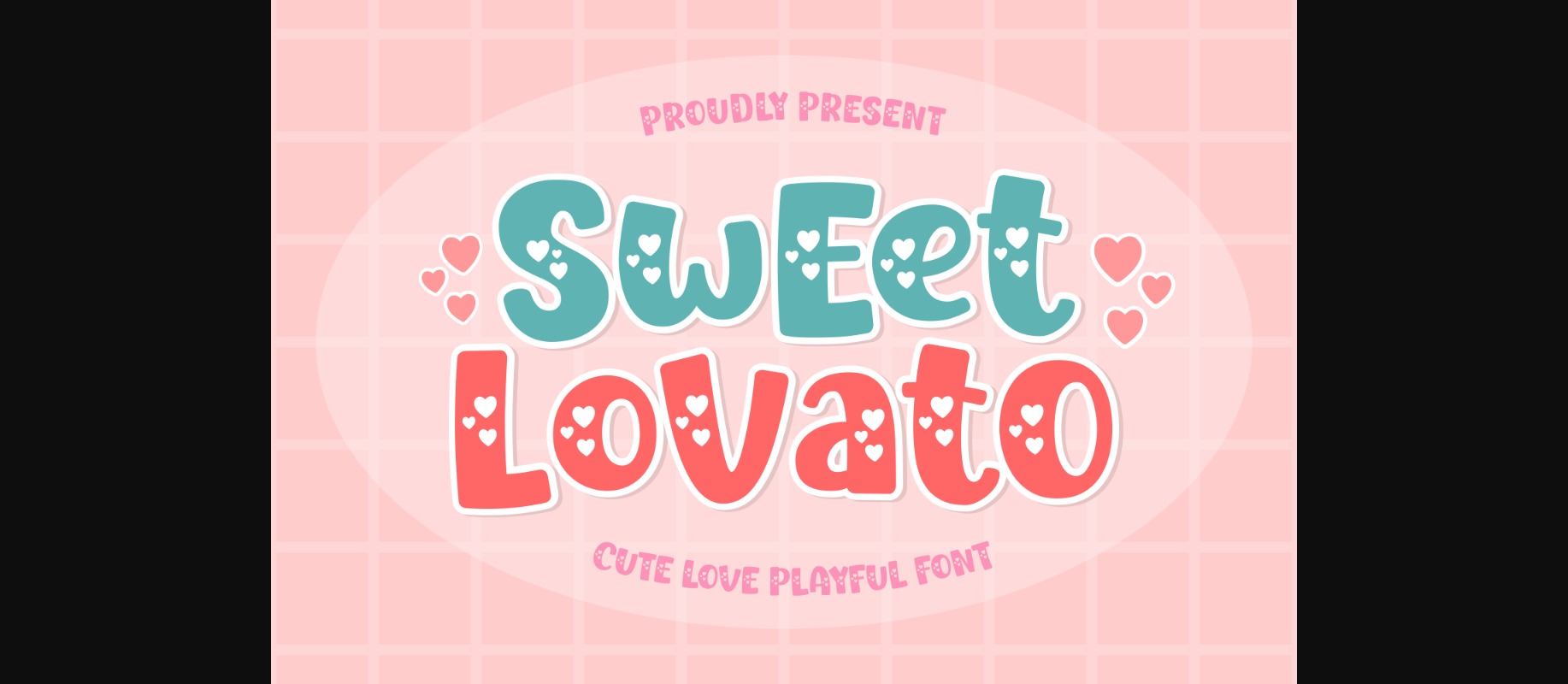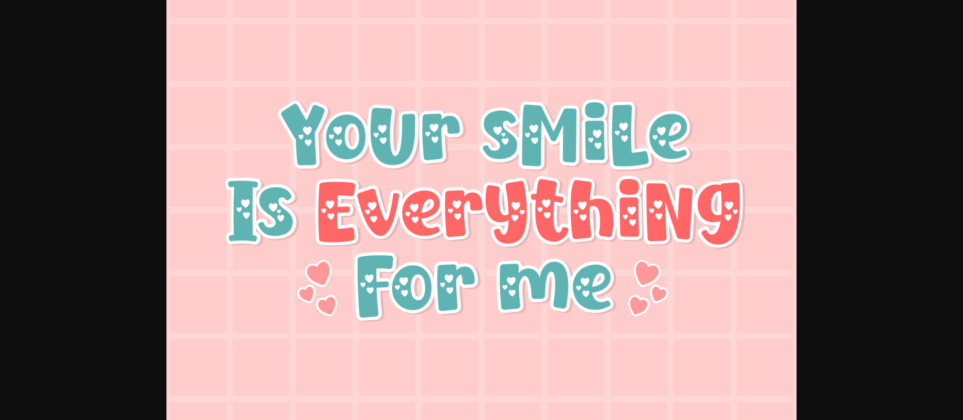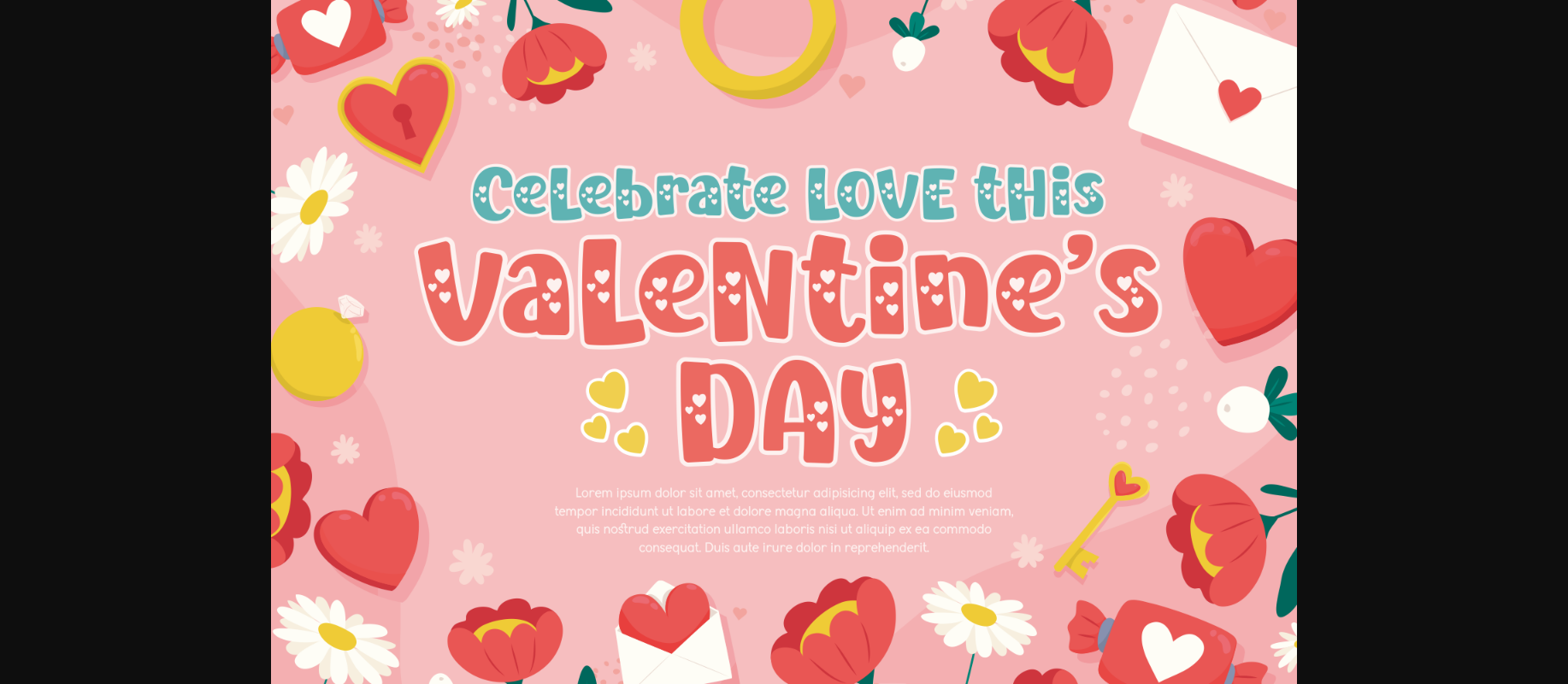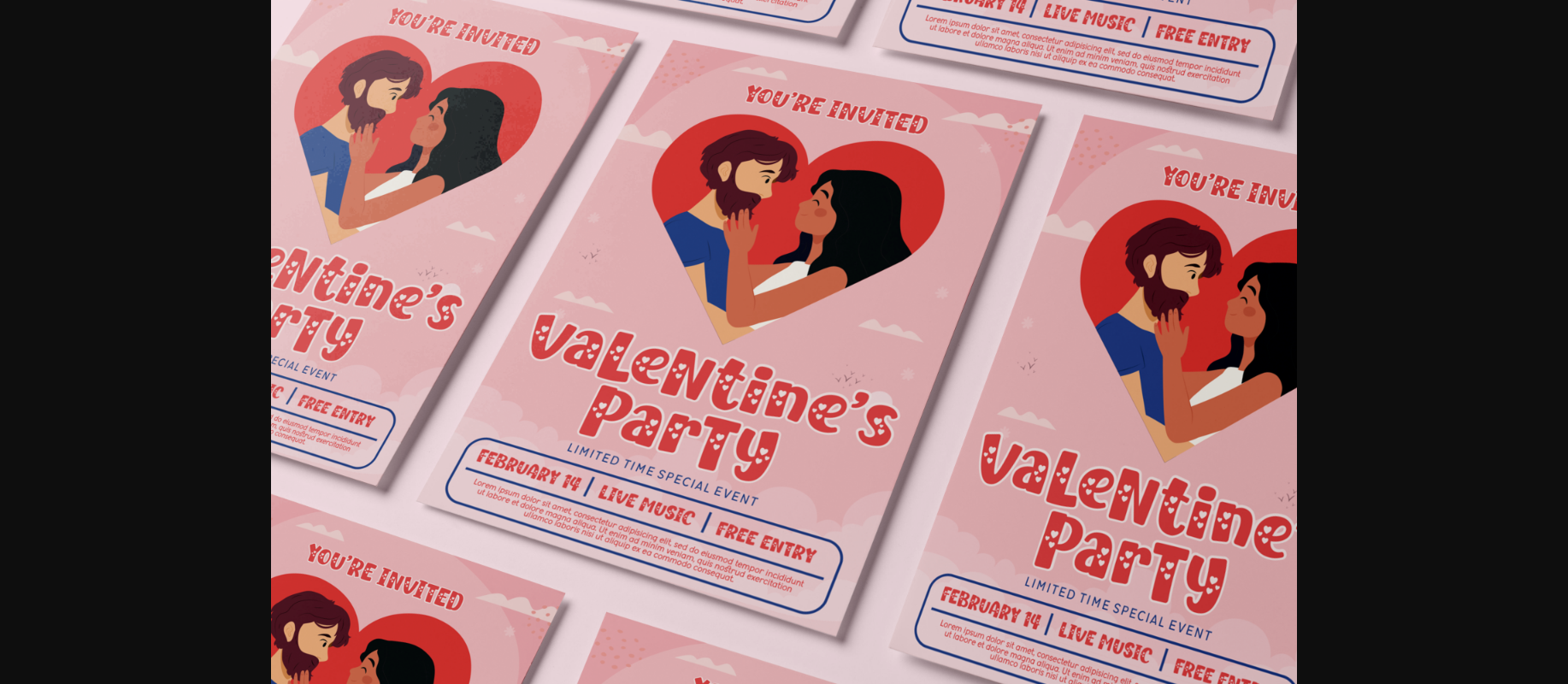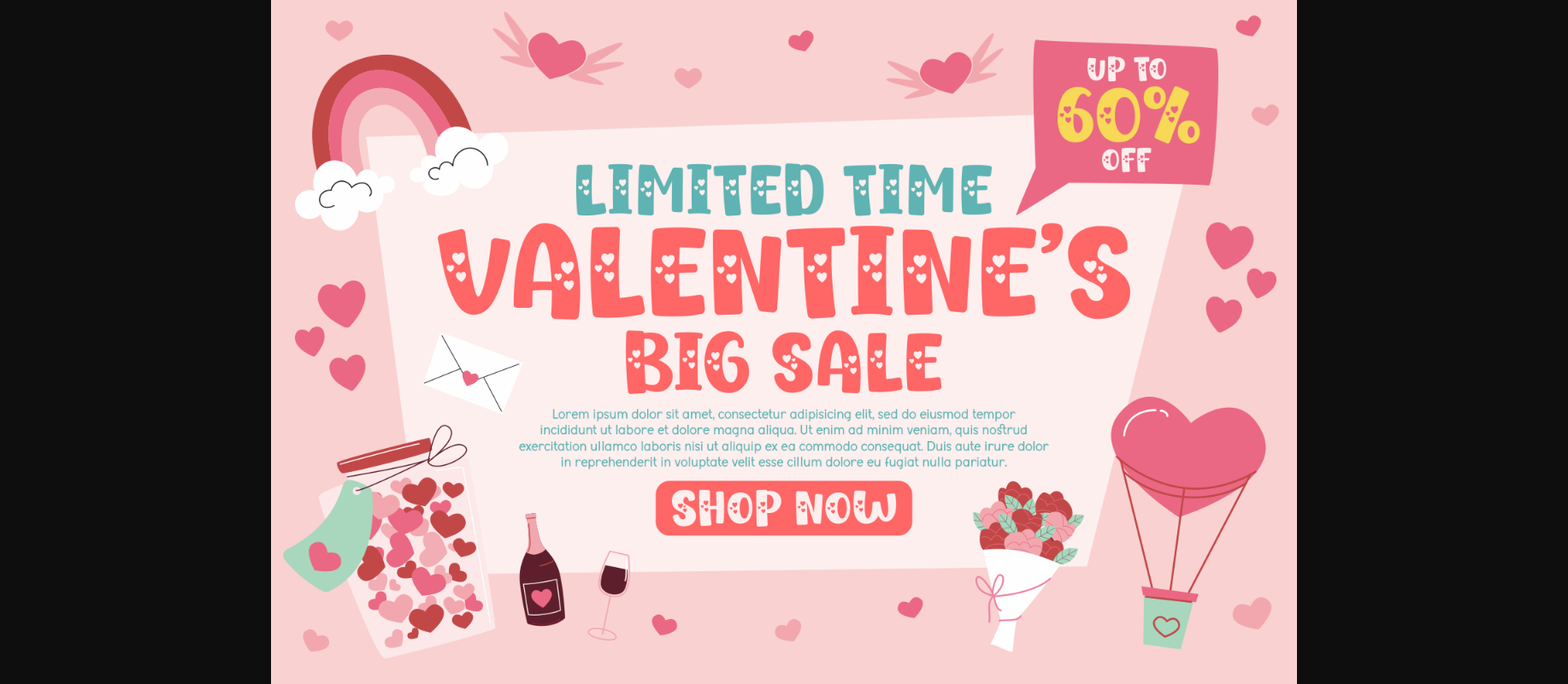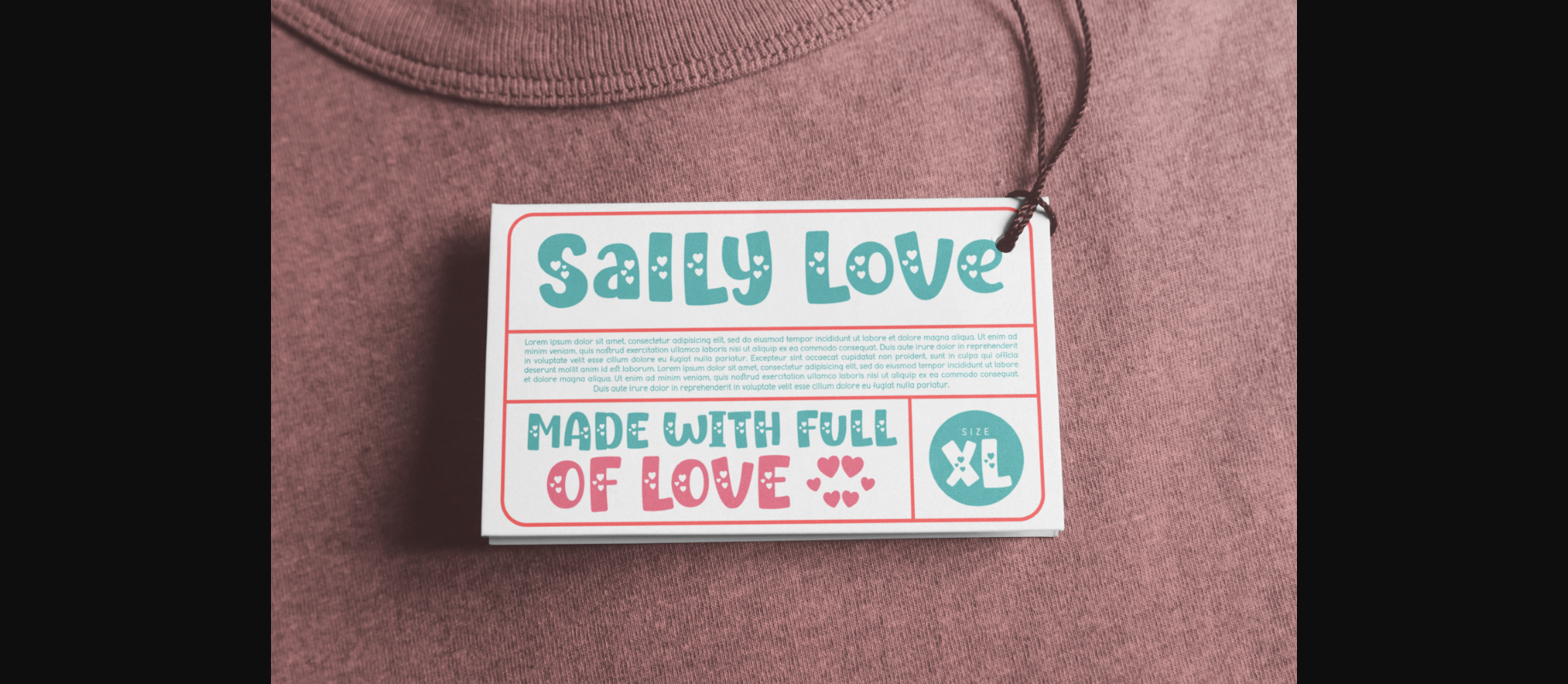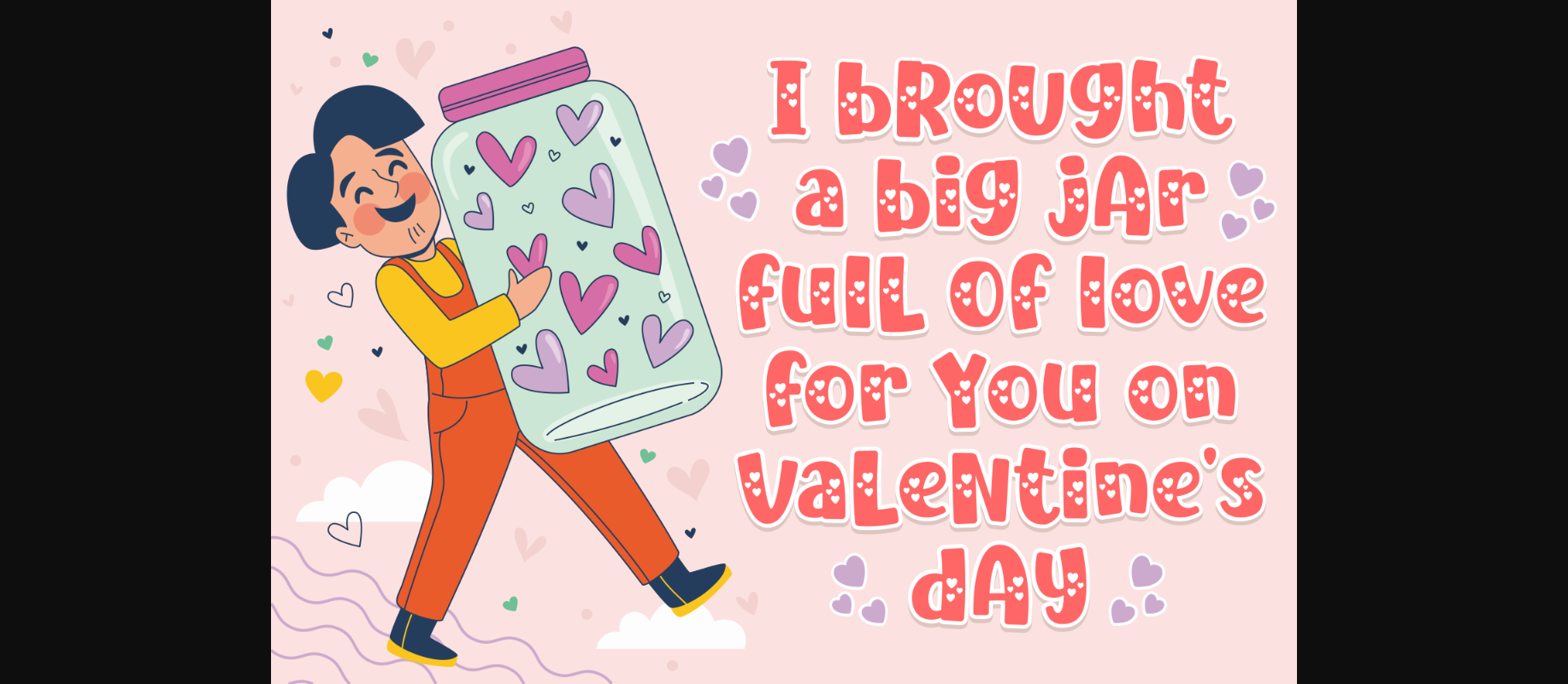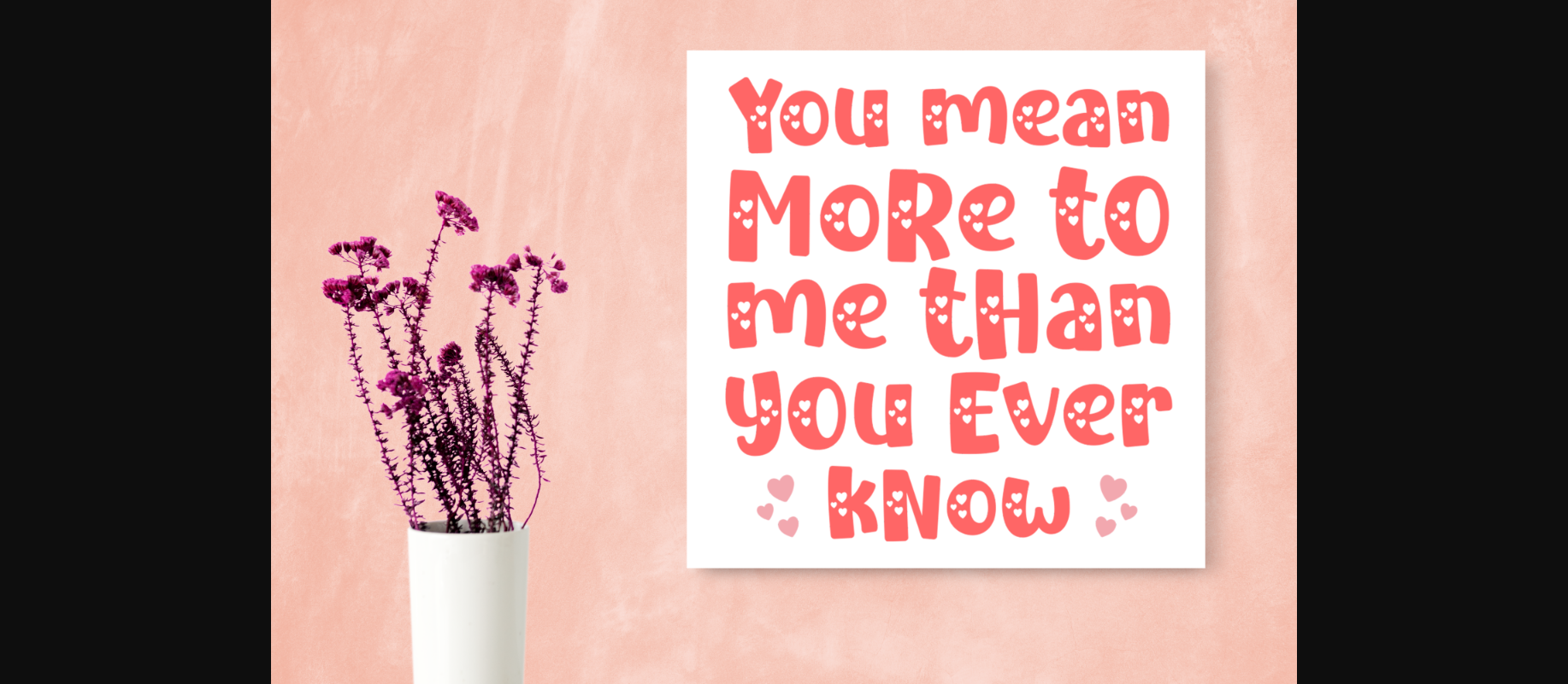
Sweet Lovato Font
About Sweet Lovato Font
Playful, friendly, and full of love – that’s how Sweet Lovato can be described. Its cheerful decorative characters are perfect for creating cute Valentine’s Day cards, gift tags, party invitations, or event posters.